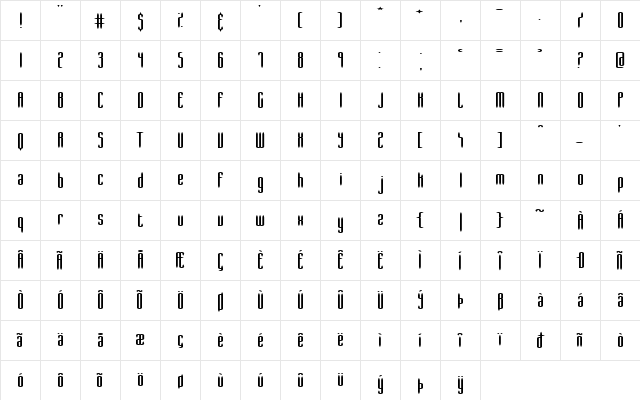
Slender Wide BRK Normal
Design Context for Slender Wide BRK Typeface
Slender Wide BRK is a composed and adaptable typeface that performs quietly and consistently across a wide range of design contexts.